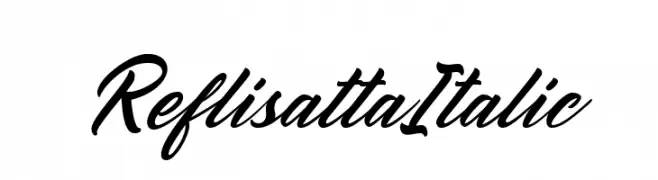
A bold, playful script font with expressive, cursive letterforms.
A bold, cursive script font with a retro, flowing style.
A dynamic, cursive font with a fluid, handwritten style.
A lively, cursive script font with fluid connections and elegant curves.
A bold, cursive, and italic font with a dynamic handwritten style.
A bold, italic script font with smooth curves and a dynamic style.
A bold, expressive script font with flowing cursive letterforms.
A dynamic, cursive handwritten font with fluid strokes and elegant connections.
A modern, cursive script font with elegant loops and flourishes.
A bold, textured cursive script with a hand-painted, artistic style.